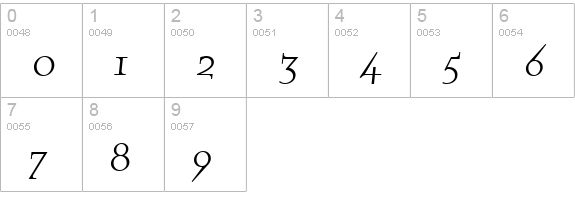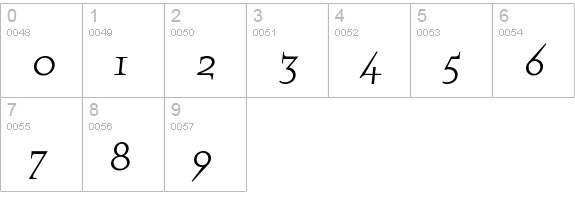
QuartetRegularOldstyle Regular Font Details
QuartetRegularOldstyle Regular is the standard, neutral variant in the QuartetRegularOldstyle typeface family \xE2\x80\x94 well suited to general body text, paragraphs, and standard typographic work.
QuartetRegularOldstyle Regular font is a timeless and classic typeface that exudes elegance and sophistication. With its refined curves and delicate letterforms, this font adds a touch of traditional charm to any design project. Whether you are creating invitations for a formal event, designing a logo for a prestigious brand, or crafting a beautiful piece of typography for a vintage-inspired website, QuartetRegularOldstyle Regular font is the perfect choice. Its versatility allows it to seamlessly adapt to various design contexts, ensuring a cohesive and polished look. What sets QuartetRegularOldstyle Regular font apart is not just its stunning aesthetics, but also its accessibility. This font is freely available to download at FontsMarket.com, making it easily accessible to designers, creatives, and enthusiasts alike. By offering this font for free, it opens up endless possibilities for individuals to explore and experiment with typography, without any financial barriers. With QuartetRegularOldstyle Regular font, you can effortlessly elevate your designs and captivate your audience. Its timeless appeal and freely accessible nature make it a must-have in any designer's toolkit. So why wait? Visit FontsMarket.com today and unlock the beauty and versatility of QuartetRegularOldstyle Regular font.